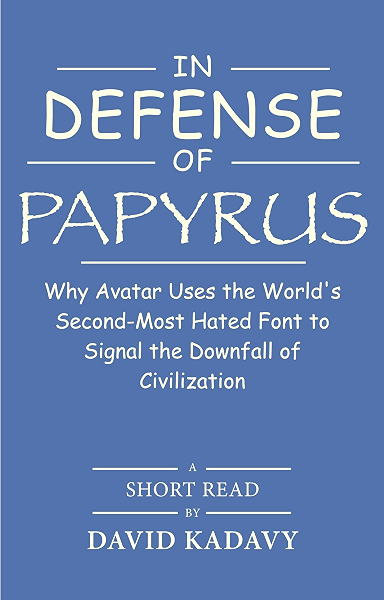
Papyrus font download. Looking for Papyrus fonts?. Here is the Papyrus font that is one of the most used typefaces in the globe This font was created and designed by Chris Costello and it was initially released by Letraset in the year 19 Chris Costello was a graphic and web designer. Download Papyrus Regular font File name Font Format Version Glyphs Size;.
Download Free papyrus Fonts for Windows and Mac Browse by popularity, category or alphabetical listing. Papyrus Plain Download Font Weights 100 Brawny gods just flocked up to quiz and vex him. Papyrus is a roman calligraphic typeface with distinctive human touches like rough edges, irregular curves, and high horizontal strokes in the caps It imp.
Free download of Parchment MF Font Released in 1995 by Rick Mueller and licensed for personal and commercialuse Only reason I'm getting this is cause there is a video game called Undertale and there's a character named Papyrus that uses this font t(_t) Broski0128 4 years ago Papyrus has been my #1 favorite From the gate BlueJazz13. Papyrus regular font is a popular roman typeface, it is the combination of the old roman letter with the human touch Chris Costello was the creator of the font in 19, Costello was graphic and web designer It is used in packaging designs, children book covers designs and invitations cards. Homepage for font “Undertale Papyrus Battle” 000 Click on the stars to rate this FontStruction Balanced Rating 000 Average Rating 000 Click for more information about this rating 0 votes You voted ?.
2 minutes to read;. Papyrus regular font is a popular roman typeface, it is the combination of the old roman letter with the human touch Chris Costello was the creator of the font in 19, Costello was graphic and web designer It is used in packaging designs, children book covers designs and invitations cards. Download Papyrus Font, Regular Version 100 Related searches Papyrus LET Pla.